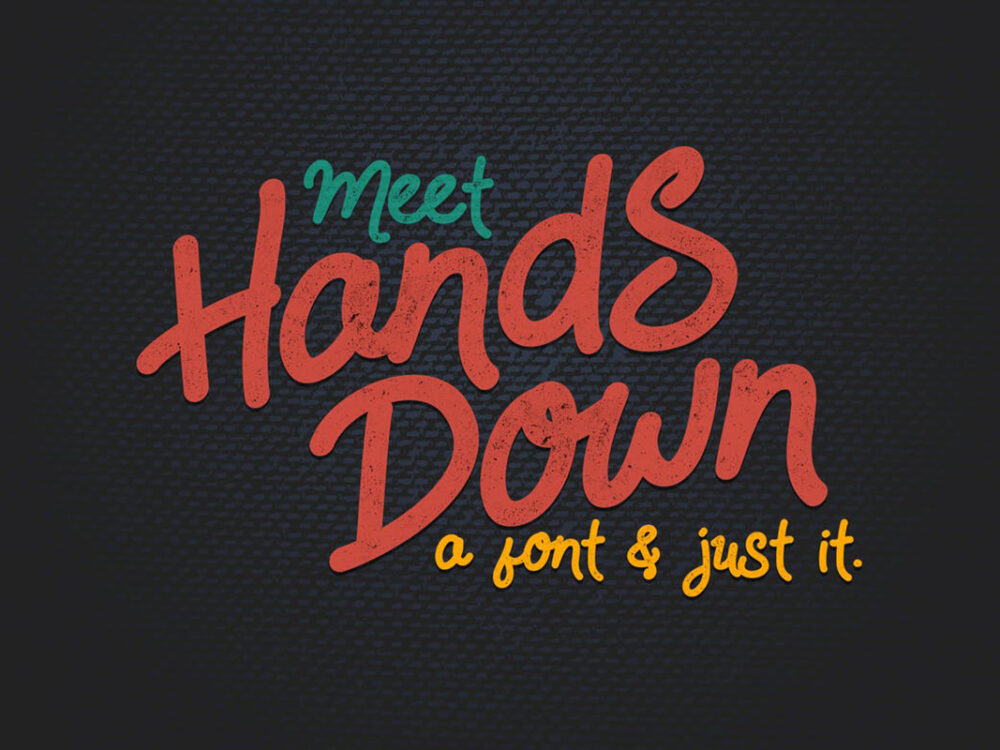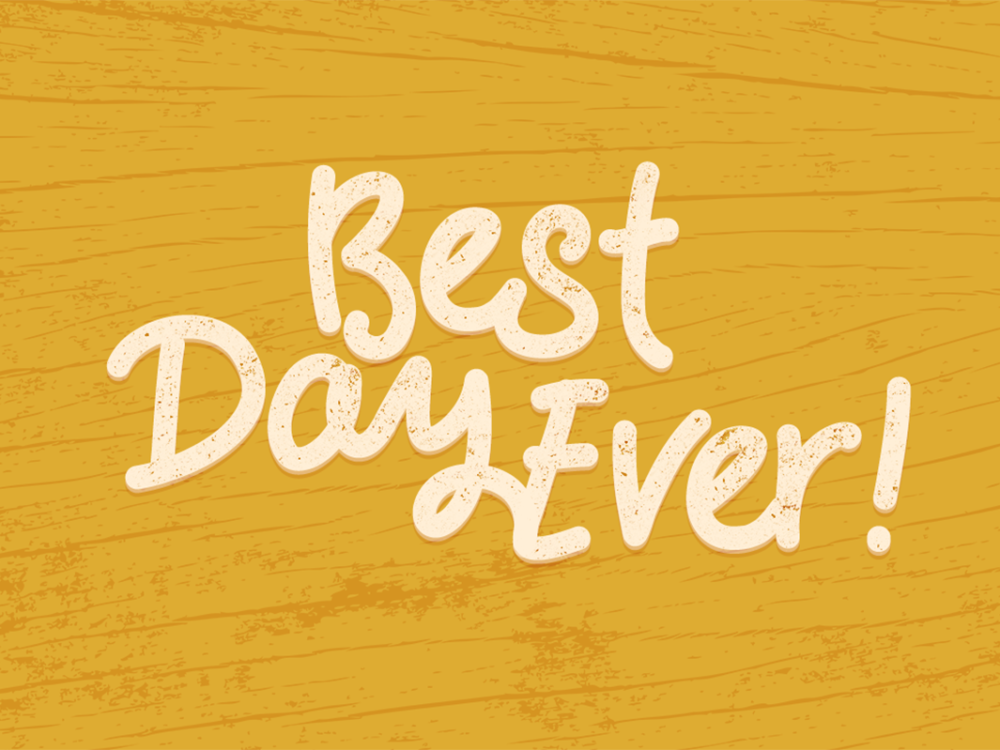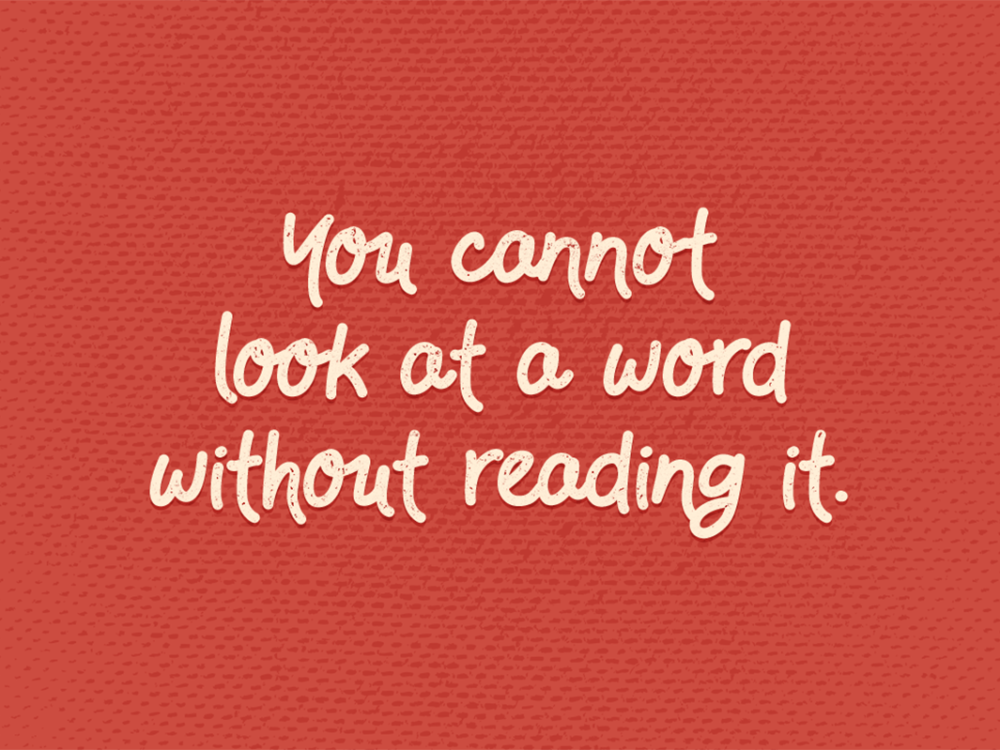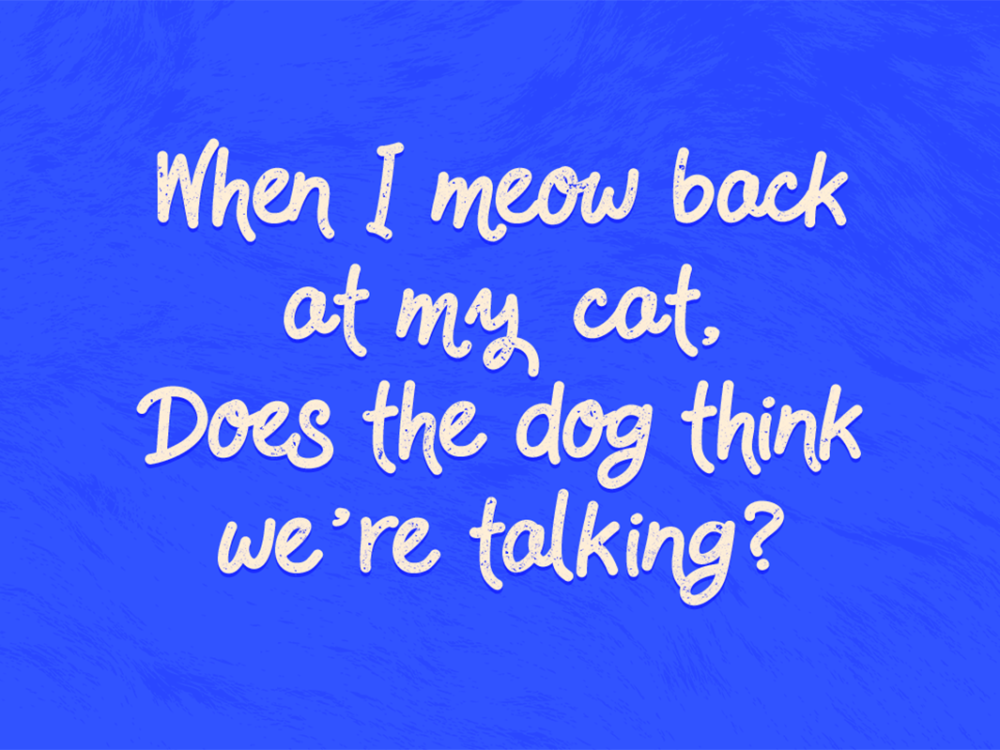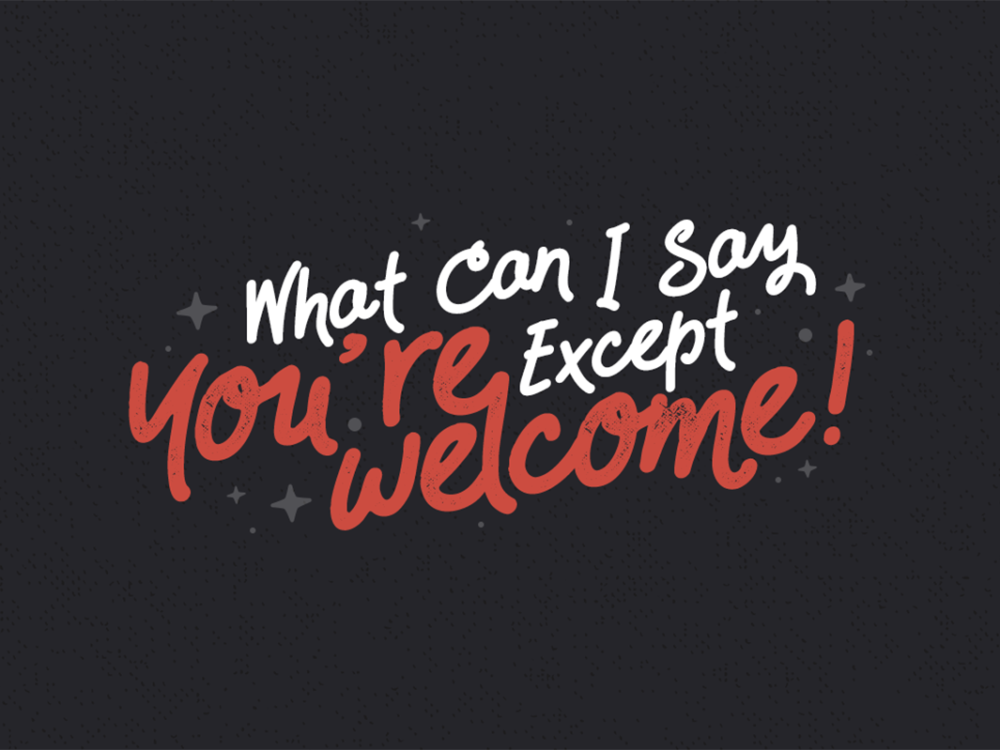
Hands-Down Free Typeface
Free Casual Font
Hands-Down Free Typeface It is a beautiful handwritten font that is simple yet unique in its lines and multilingual support. This font is great for creating designs for posters, cards, invitations, clothing prints, and more.